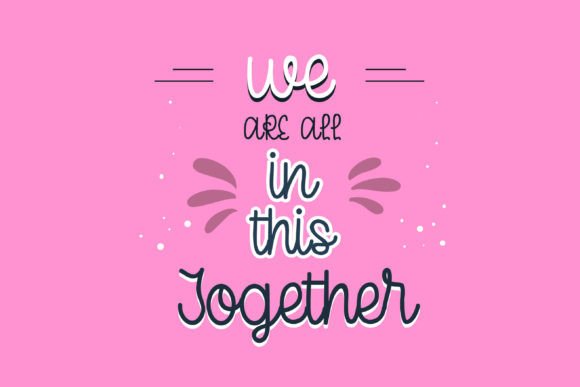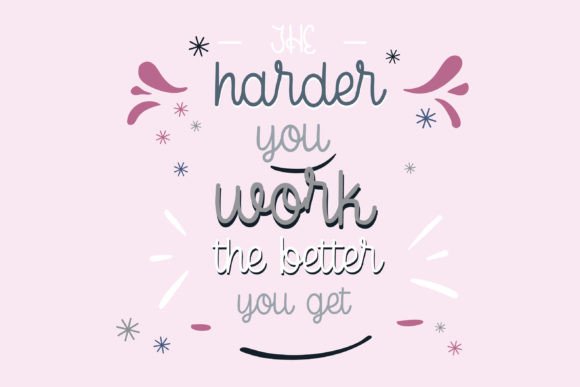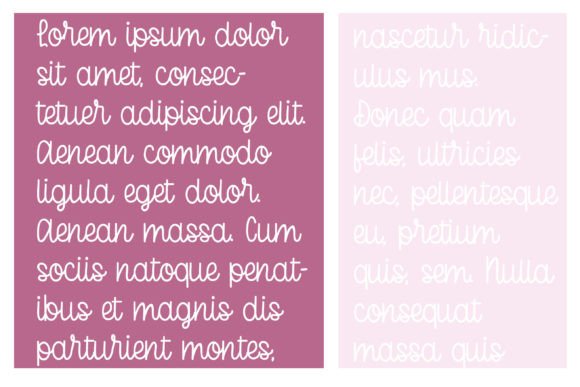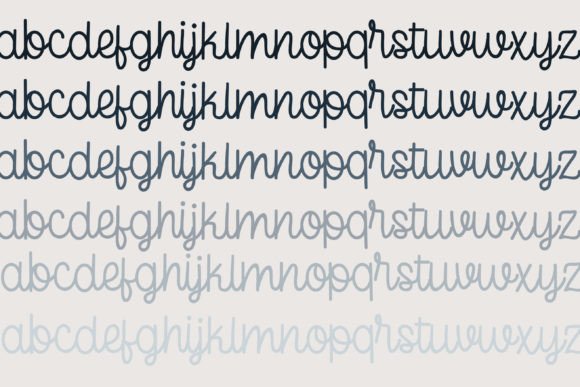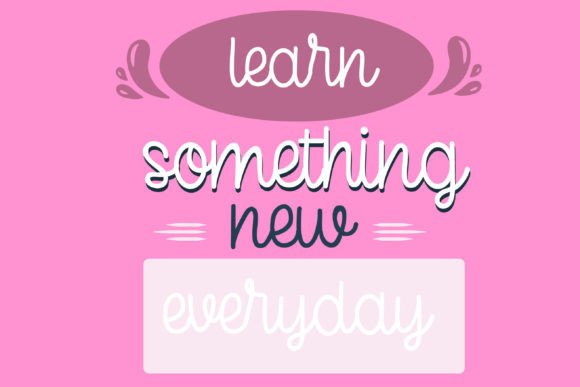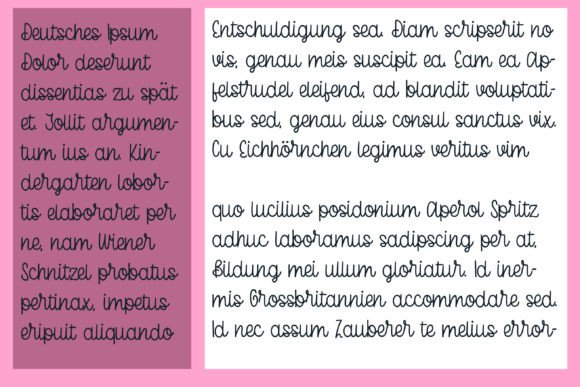
Dollie Script Font: Adding a Touch of Whimsy to Your Designs
In the world of typography, fonts play a crucial role in conveying the tone and personality of a design. If you’re looking for a font that exudes playfulness and charm, look no further than Dollie Script. This delightful handwritten font is perfect for designers and crafters who want to add a touch of whimsy to their projects. In this article, we’ll explore the features and benefits of Dollie Script, and how it can elevate your designs to the next level.
The Charm of Dollie Script
Dollie Script is a quirky and charming font that captures the essence of playfulness and joy. Its uneven strokes and charming imperfections give it a unique and handmade feel that’s perfect for a variety of design projects. Whether you’re creating invitations, greeting cards, or crafty designs, Dollie Script brings a sense of whimsy and delight that’s sure to captivate your audience.
One of the standout features of Dollie Script is its handwritten style. The font is designed to look like it was written by hand, with each letter and stroke carefully crafted to create a sense of movement and fluidity. The result is a font that feels personal and approachable, making it perfect for designs that require a touch of warmth and personality.
Uses for Dollie Script
Dollie Script is a versatile font that can be used for a wide range of design projects. Here are some ideas to get you started:
- Invitations: Use Dollie Script to create playful and whimsical invitations for parties, weddings, and other special events.
- Greeting Cards: Add a touch of personality to your greeting cards with Dollie Script, perfect for birthdays, holidays, and other celebrations.
- Crafty Designs: Dollie Script is perfect for crafty designs, such as DIY tutorials, blog posts, and social media graphics.
- Signs and Posters: Use Dollie Script to create eye-catching signs and posters for events, promotions, and advertising campaigns.
Benefits of Using Dollie Script
So why choose Dollie Script for your design projects? Here are just a few benefits of using this delightful font:
- Unique and Playful: Dollie Script adds a touch of whimsy and playfulness to your designs, making them stand out from the crowd.
- Handwritten Style: The font’s handwritten style gives it a personal and approachable feel that’s perfect for designs that require a touch of warmth and personality.
- Versatile: Dollie Script can be used for a wide range of design projects, from invitations and greeting cards to crafty designs and signs.
- Easy to Read: Despite its playful style, Dollie Script is easy to read and understand, making it perfect for designs that require clear communication.
Tips for Using Dollie Script
Here are a few tips for getting the most out of Dollie Script:
- Use it sparingly: While Dollie Script is a beautiful font, it can be overwhelming if used too much. Use it sparingly to add a touch of whimsy to your designs.
- Pair it with other fonts: Experiment with pairing Dollie Script with other fonts to create a unique and visually appealing design.
- Adjust the size and color: Play around with the size and color of Dollie Script to create a design that’s tailored to your needs.
Dollie Script is a delightful and quirky handwritten font that’s perfect for designers and crafters who want to add a touch of whimsy to their projects. With its uneven strokes and charming imperfections, this font brings a sense of joy and creativity to any design. Whether used for invitations, greeting cards, or crafty designs, Dollie Script is sure to captivate your audience and make your designs stand out from the crowd.
So why not give Dollie Script a try? With its unique and playful style, it’s the perfect font for anyone looking to add a touch of personality to their designs.